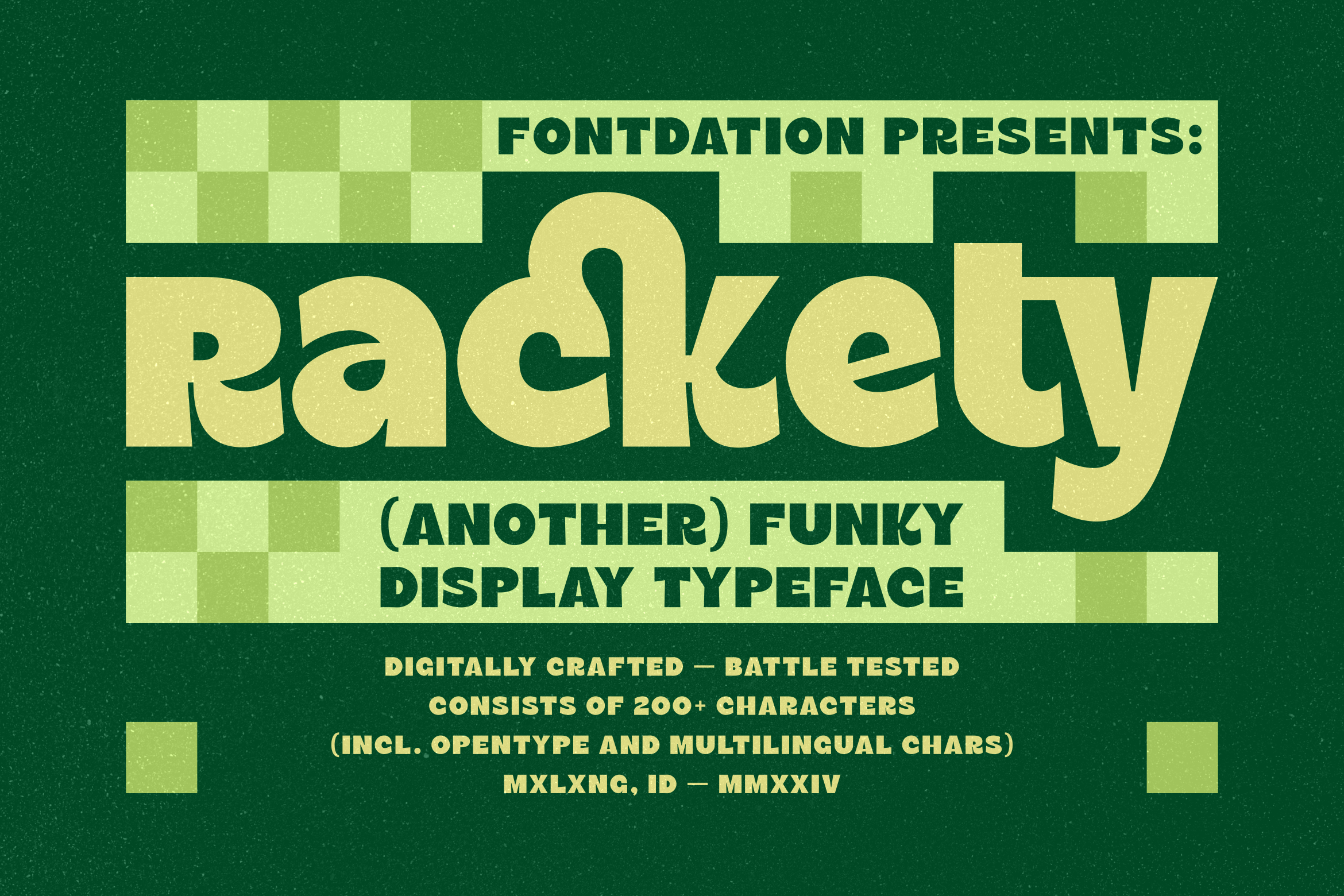
Rackety Complete | Display Font
Introducing our latest typeface release: Rackety. A bold, playful and funky display sans serif that are inspired by the classic advertisement letters. Crafted with high attention to details to match with nowadats trendiness. Rackety suits best for any kind of designing themes, such as: quote designs, poster designs, headline, logo/branding, packaging, etc.
- Standard characters, numerals, punctuations, alternate & stylistic characters, LOTS of ligatures (OpenType Standard encoding),
- Available in multilingual languages, e.g : Afrikaans, Albanian, Catalan, Croatian, Czech, Danish, Dutch, English, Estonian, Finnish, French, German, Hungarian, Icelandic, Italian, Lithuanian, Maltese, Norwegian, Polish, Portuguese, Slovenian, Spanish, Swedish, Turkish, Zulu, etc),
- Available in three styles: Small, Medium and Regular